Andanta Font
Andanta is a monoline script typeface with casual classic concept. This type of font is specifically designed and best suited to be used particularly in logo, headline, signage
Heliopride Font
Heliopride is one of the beautiful typefaces categorized as thin and delicate lettered script font with the vintage look of the normal setting. There is no Technical credit,
Hillya Font
Hillya is classified as a monoline script font. It is derived from vintage typographies, and it has a relaxed, unsophisticated appearance. It’s ideal for clothing lines, logos, social
Bashiton Monoline Font
Bashiton Monoline is a simple script type face font with a little vintage appeal. This font of font can be used for headlines, logos, signs, etc and other
Sarlotte Font
Sarlotte is a beautiful script font with handwritten pleasant appeal for style. In creating a beautiful touch, each line dances, and will not lose its orientation even when
Borderland Font
Borderland is a font, which is styled with luxury, having the looks of a font written by hand in the olden days. The letters ‘S- I -T –E’
Avelina Font
New collection! Avelina Script font! Avelina Script is a beautiful one that is intended for your branding, social media, product designing, and advertising. Check through the previews above
Nattalie Font
Nattalie Monoline Font is a kind of typeface that has been designed with the influence of handwriting through the use of pen. This font is ideal for use
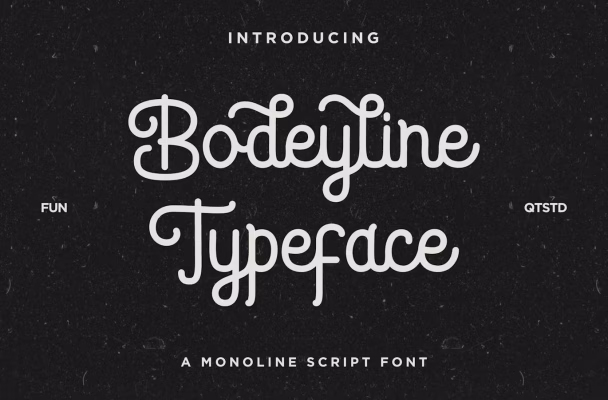
Bodeyline Font
This is not just another typeface, this is a beautiful pinch of simplicity accompanied by elegance created in one monoline script that can turn your projects into works
Noodle Font
Noodle is a absolutely stunning font that is well balanced, fully vintage and in the script style. It is characterized by rounded edges and is best suited for
Hayleish Beasttie Font
Hayleish Beasttie is a script typeface, great for overall impressions. This font is nicely done and has some of the best detailing that you could imagine. Whether it
Carimba Font
Carimba is a beautiful script and it is a monoline typeface that looks like label fonts from the past. This font is perfect for elegant highlights in your
Routen Font
Please introduce, Routen. A Vintage monoline design with the lightning swash! monoline script typeface of the vintage style, that has several options, including ligatures, stylistic set alternating, swash,
Leonaley Font
This blogs post aims at presenting Leonaley in its simplicity, a monoline font that is perfect for minimalist lovers. Especially drawn with thin line weight and heavy round
Austryan Signature Font
The same can also be said of Austryan Signature that aptly captures the style of luxury in the typographic design. Specifically, this Signature Font aims to give you
Arthegis Font
Originally a calligraphic license font, Arthegis is a magical script font designed to be elegant with great care. If it’s Instagram fonts you want, or if you’re running
Routerline Font
Routerline is a script monoline with four subscripts, which looks very nice when used in various products. It has multiple letters, using ligatures, and alternatives based on the
Panhenlis Font
Panhenlis – Beauty Monoline Font , from Letterfabric Studio, is a suitable for any projects such as: business logo designs, branding graphics, kitchenware designs, product labeling, ceramic mugs,
Nullisy Font
Nullisy – Monoline Sans Script is a new release that will be featuring a monoline script font that can lend a more elegant and sophisticated look to your
Diamor Font
Introducing Diamor Script. Diamor Script is a monoline beautiful fonts typefaces with additional features to make your typographical work refined. That’s quite a beauty and makes using this
Datians & Angela Font
Datians & Angela is a neat and adaptable handwritten monoline signature font. It is suitable for any projects such as: logos, branding projects, label, photography, watermark, special events,